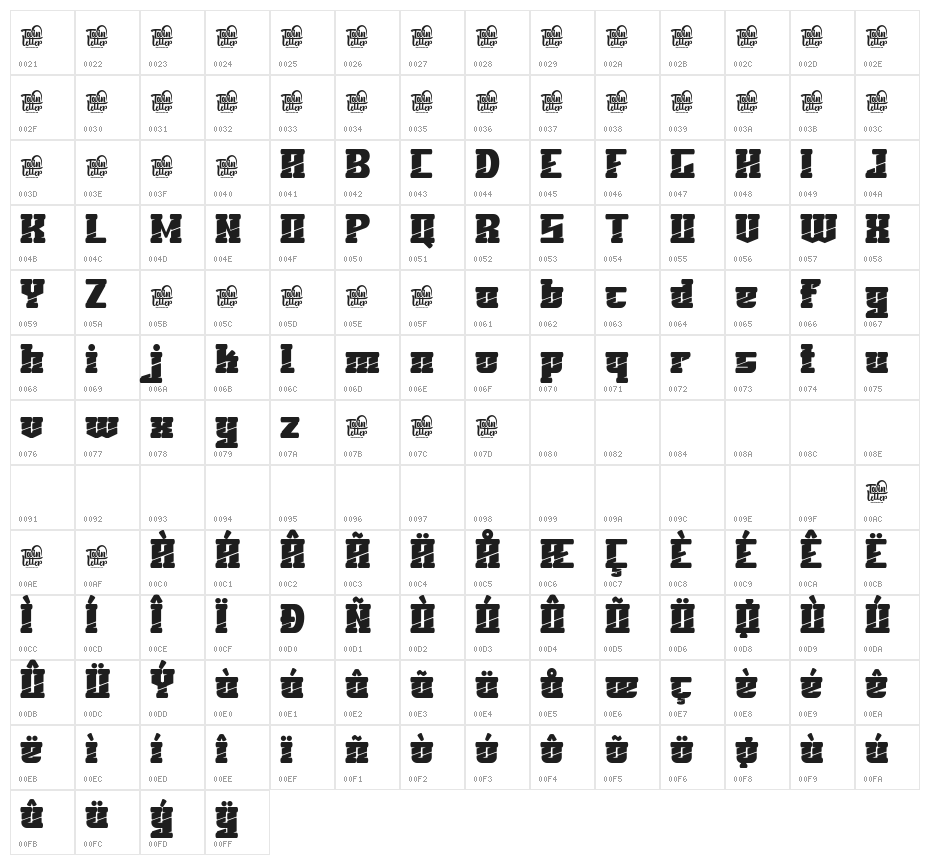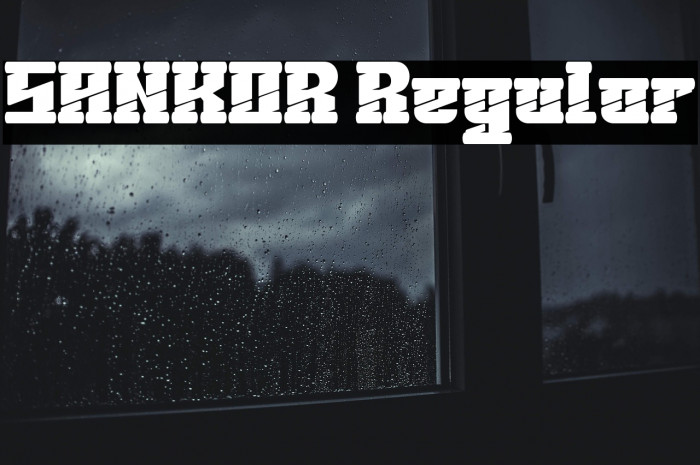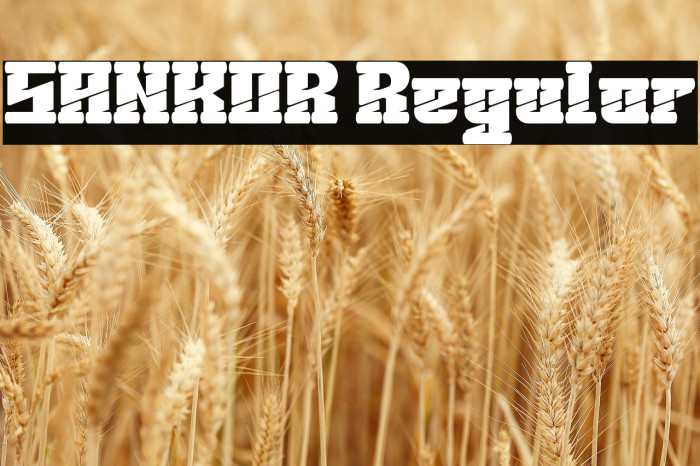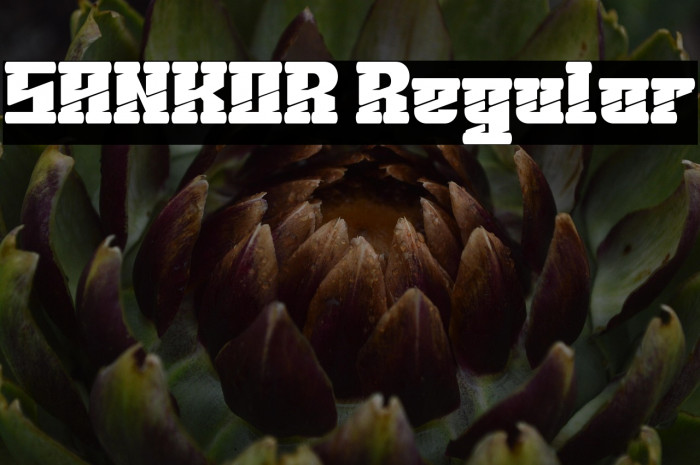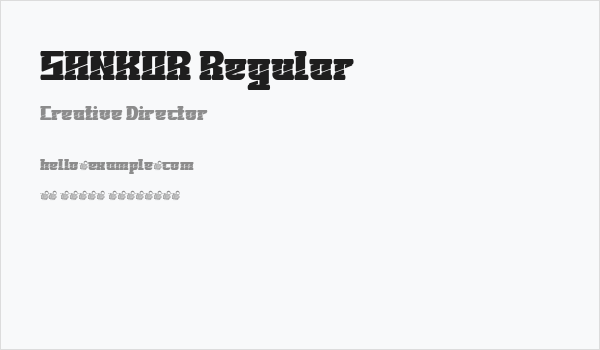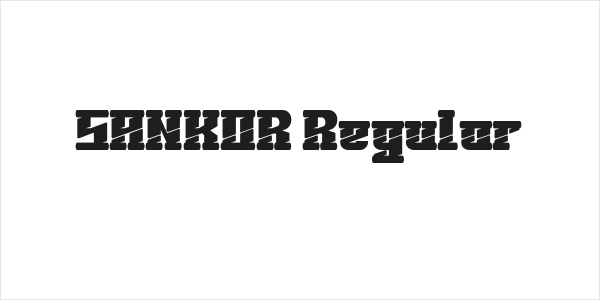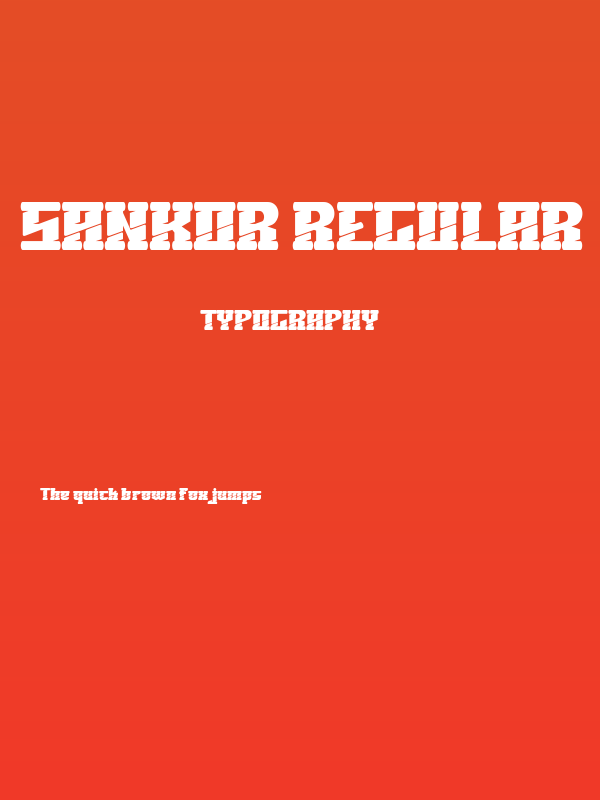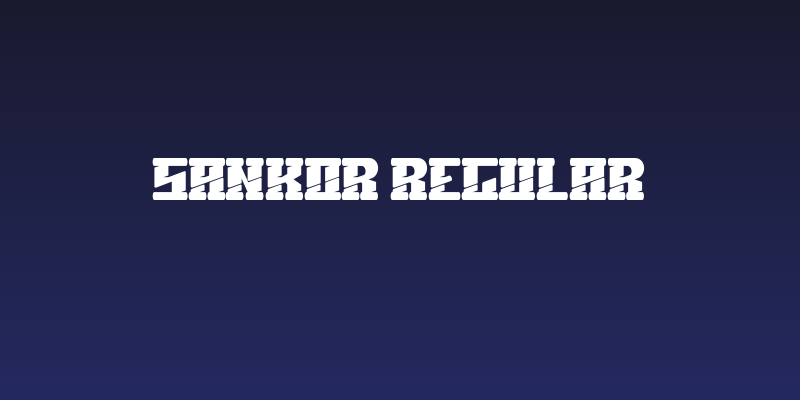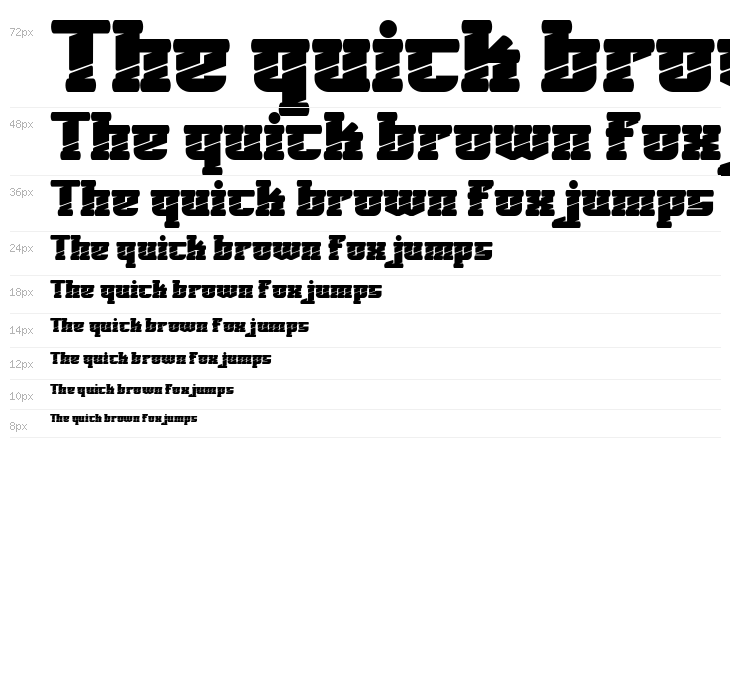
SANKOR Regular Font
SANKOR Regular Description
This font features a bold and striking design with a strong geometric influence. The characters are blocky and robust, with sharp angles and a consistent thickness throughout. The uppercase and lowercase letters maintain a uniform style, creating a cohesive look. The font's unique style is accentuated by its solid, filled-in appearance, making it highly visible and impactful. Its design is reminiscent of industrial or futuristic themes, making it suitable for projects that require a bold statement.
| Proposed Projects | Ideal for branding, posters, headlines, and any project that requires a bold and impactful visual presence. |